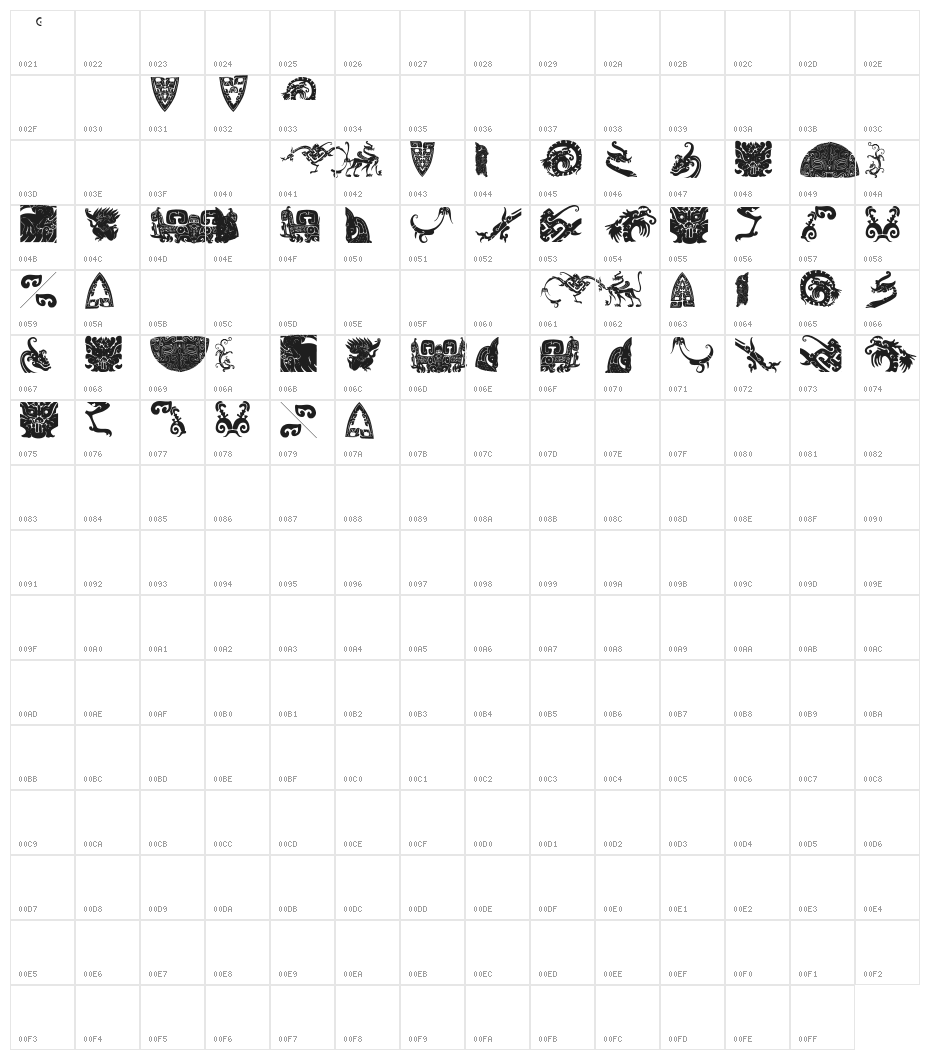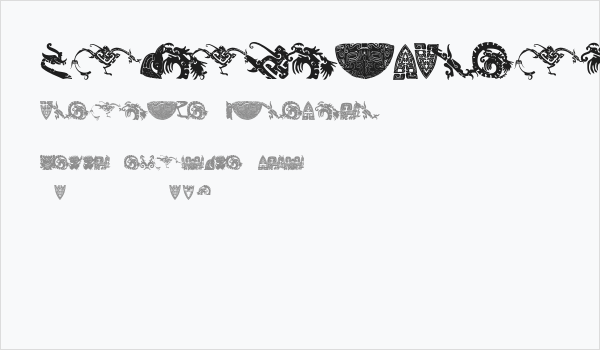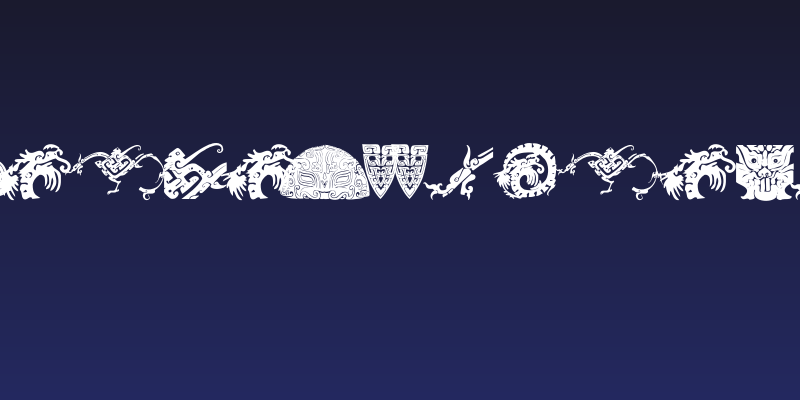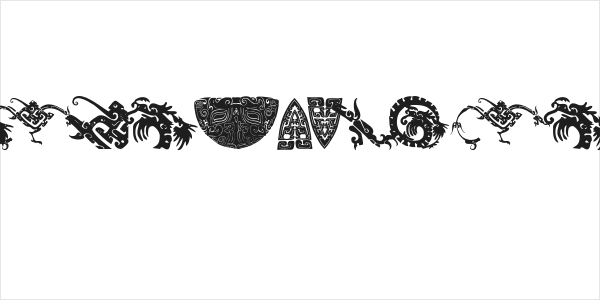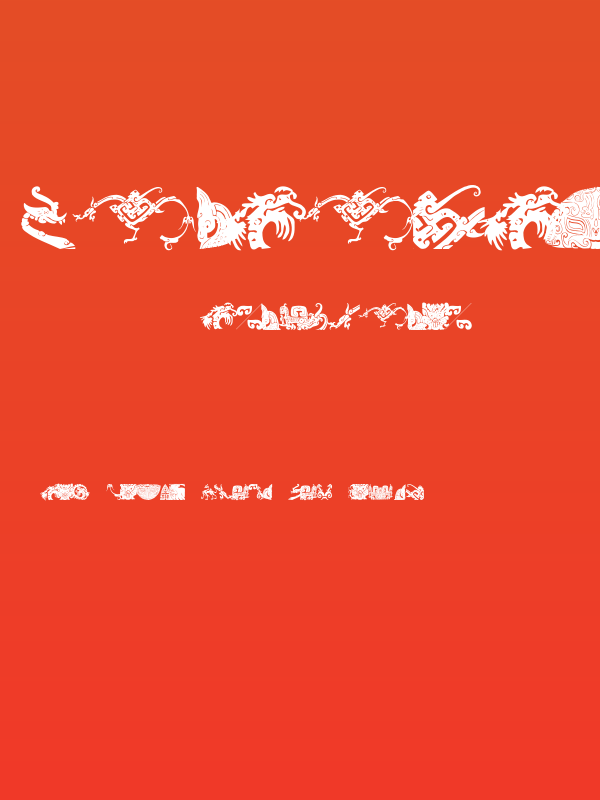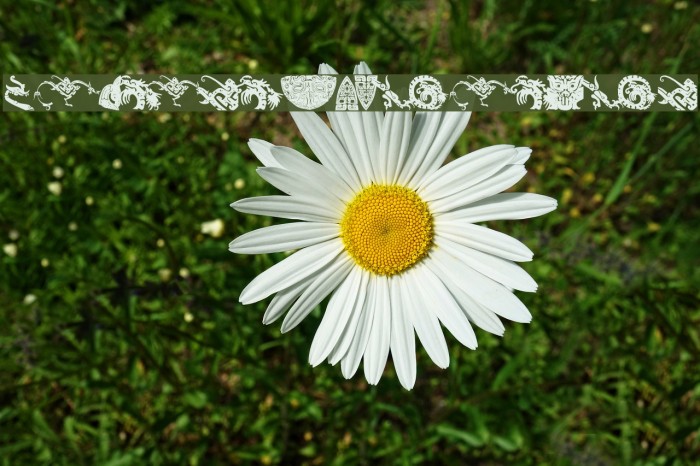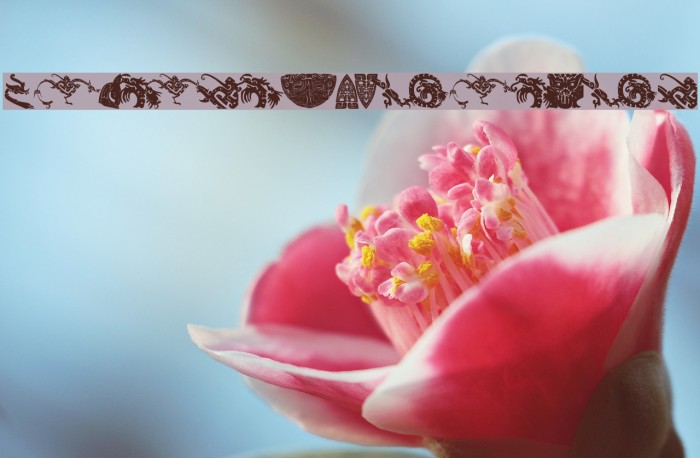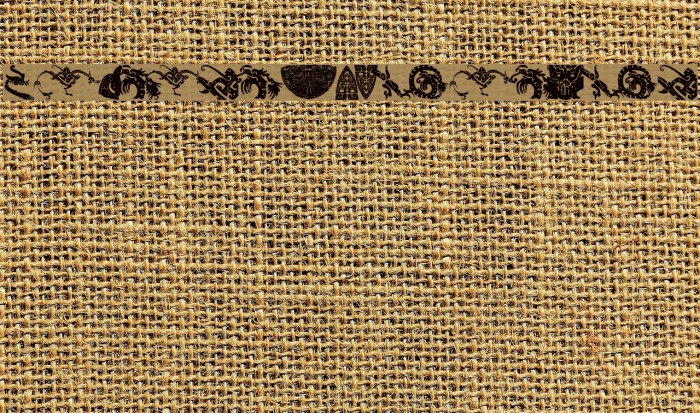
FantasticCreatures Font
FantasticCreatures Description
This font is a highly decorative and artistic representation of mythical creatures and intricate patterns. Each character is uniquely designed, incorporating elements of fantasy and mythology, making it more of an artistic expression than a traditional font. The characters are filled with elaborate details, featuring swirling lines and complex shapes that resemble mythical beasts and ornate designs. This font is not suitable for body text due to its complexity but serves as a captivating visual element for creative projects.
| Use Case | Logos, Posters, Artistic Designs |
| Proposed Projects | Ideal for fantasy-themed posters, book covers, art projects, and decorative elements in graphic design. |